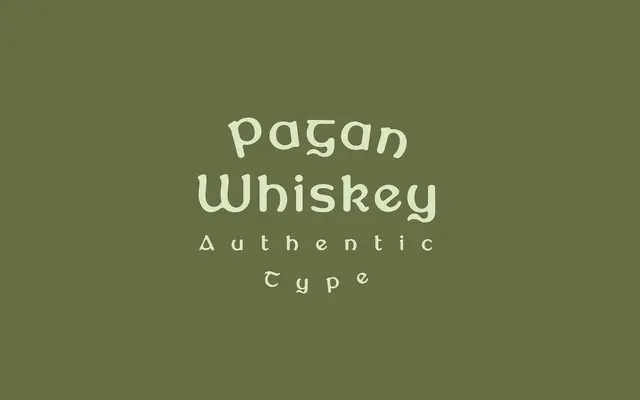
Pagan Whiskey
A single-weight display typeface with a vintage whiskey aesthetic, sold as a one-off paid offering from McLetters.
Available in a single Regular weight, Pagan Whiskey is pitched at display use with a name and branding evoking old whiskey label lettering. The page offers minimal technical detail beyond a standard preview at 86px. Suited to packaging, poster work or any project calling for a period-flavoured display face.
The name and single-weight offering suggest a decorative display typeface; limited page content precludes further subcategory precision, but the whiskey-themed branding implies an ornate or vintage serif style.